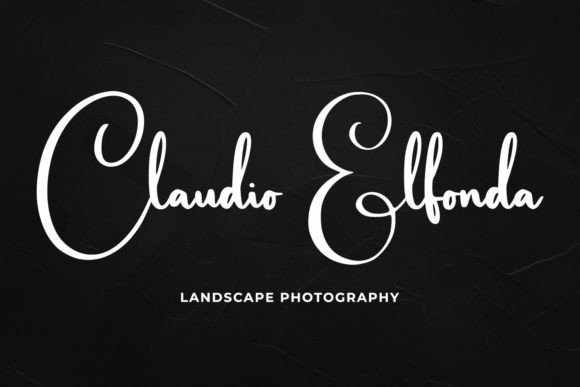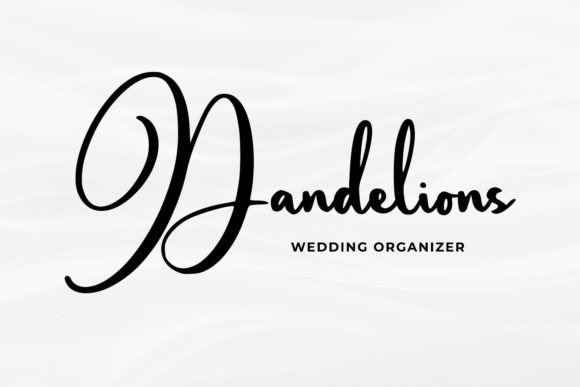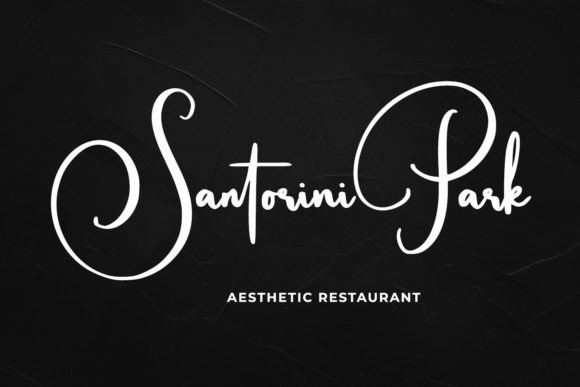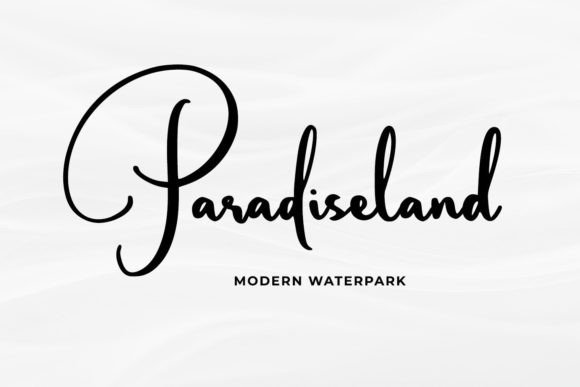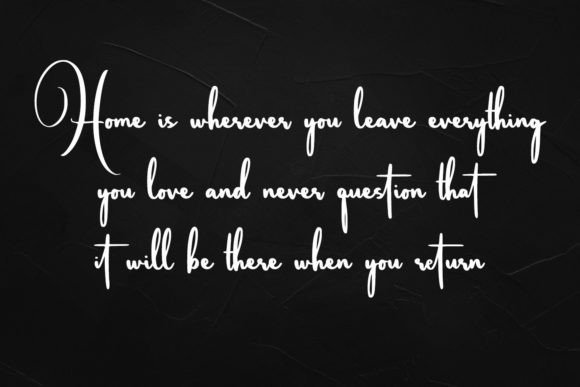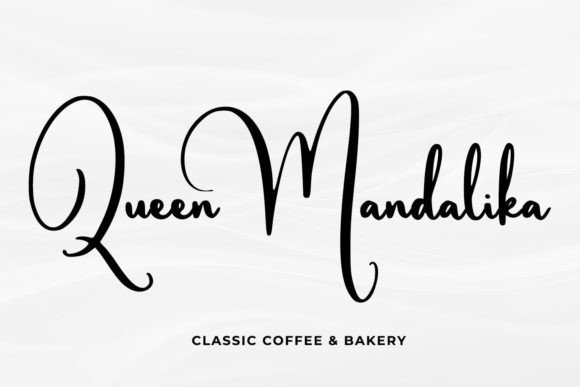
The Abandoned Font: A Bouncy Signature Style for Your Creative Projects
I’ll never forget the time I was working on a branding project for a trendy new coffee shop. My client wanted a fun, playful vibe, but I was struggling to find the perfect font to capture that essence. That’s when I stumbled upon the Abandoned font – a bouncy signature font that’s since become a staple in my design toolkit.
An Honest Review of Abandoned Font
• ✨ Unique, hand-drawn style that’s perfect for branding and logotype
• 🎉 Bouncy, energetic feel that’s great for quotes, t-shirt designs, and more
• 🤩 Extensive OpenType features, including glyphs and stylistic alternates
While Abandoned is an amazing font, there are a few things to keep in mind:
• ⚠️ Some letters may not connect perfectly, which can affect the overall flow of text
• 🤔 Limited use of uppercase letters, which may not be ideal for certain design projects
The Backstory Behind Abandoned Font
Abandoned was designed by a talented type designer who wanted to create a font that captured the carefree spirit of a bygone era. With its bouncy, energetic style, Abandoned is perfect for designers who want to add a touch of whimsy to their work.
Q: What is the Abandoned font best used for?
A: Abandoned is great for branding, logotype, quotes, t-shirt designs, tote bag designs, cards, banners, social media, and more.
Q: Is Abandoned a difficult font to read?
A: No, Abandoned is highly legible, even at smaller font sizes, making it perfect for body text and captions.